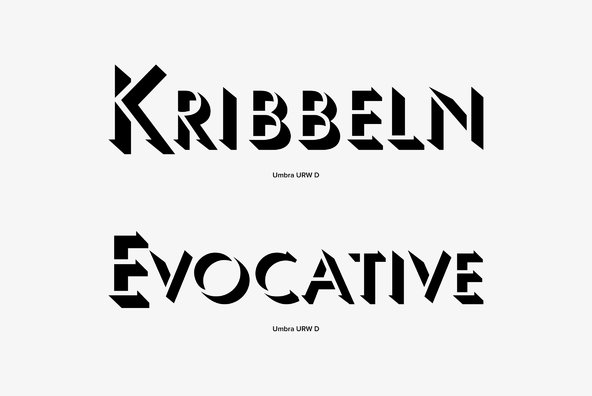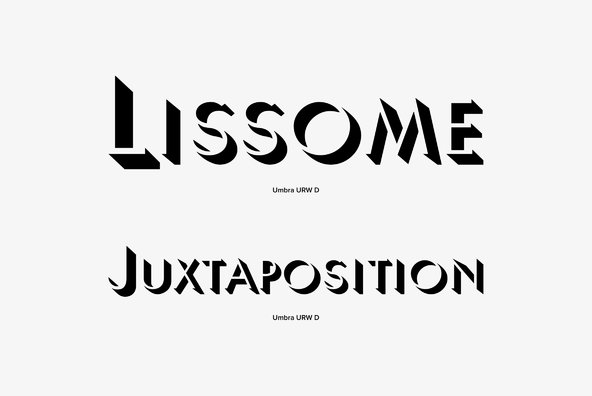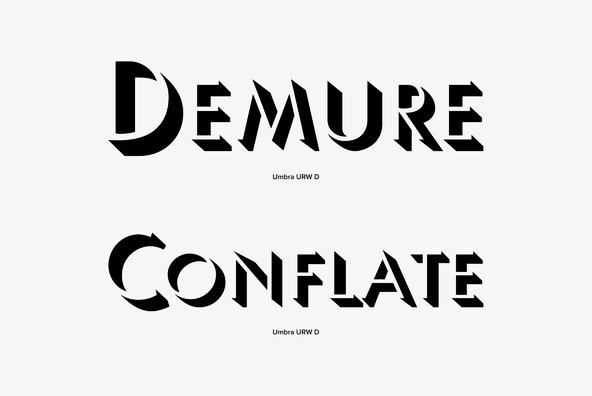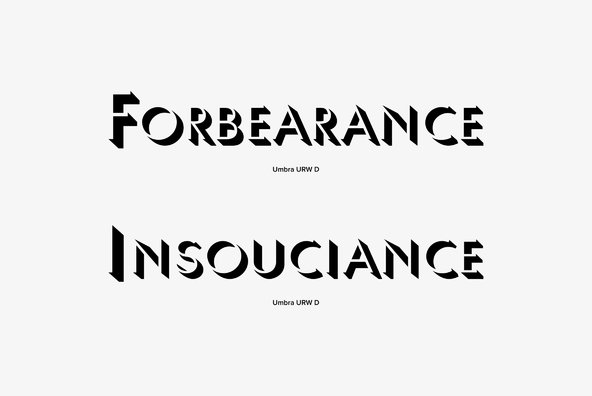
Umbra is a sans-serif display typeface designed in 1935 by R. Hunter Middleton. It is an adaptation of the uppercase set of his earlier typeface Tempo Light. The name Umbra refers to its shadow effect, in which the actual letter shape consists of negative space and is defined solely by its black dimensional shadow.